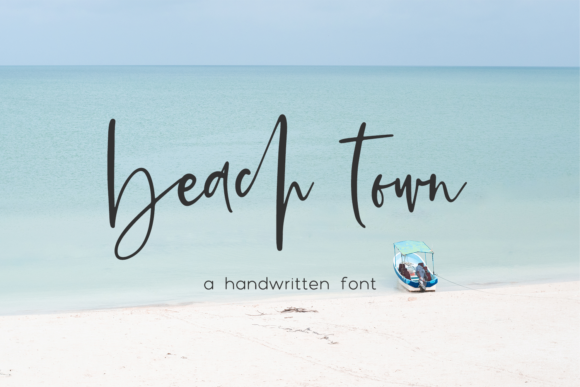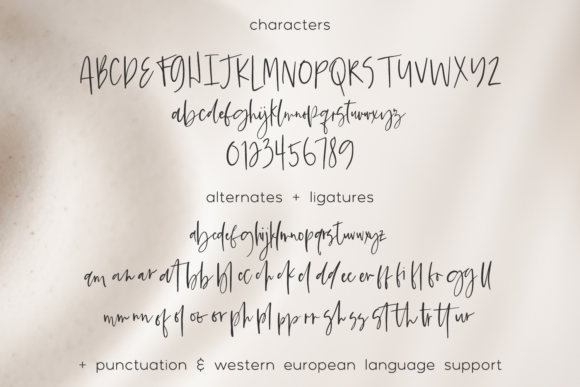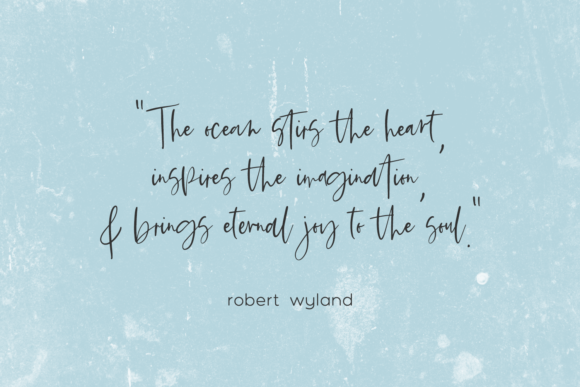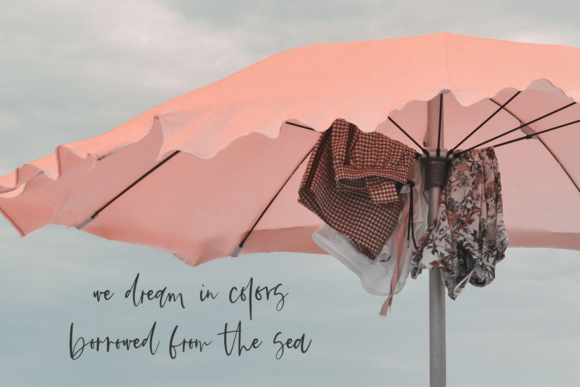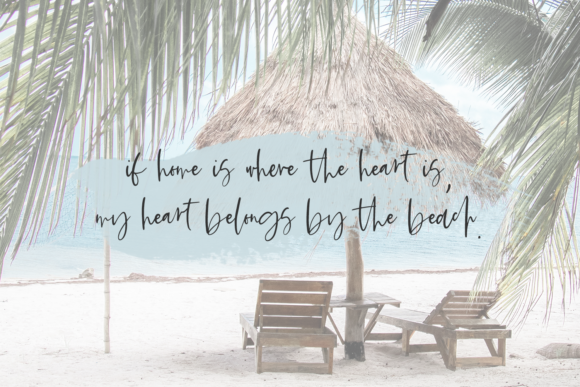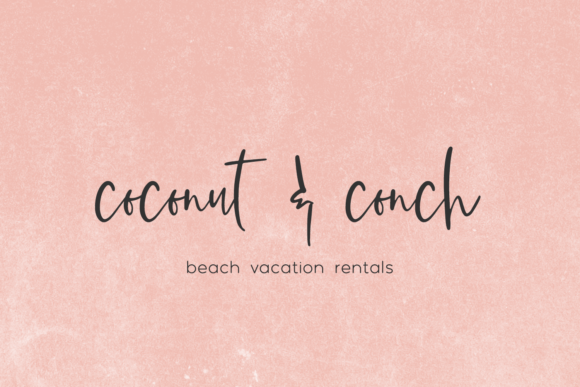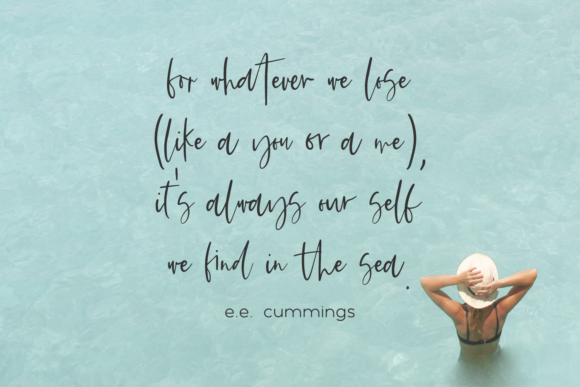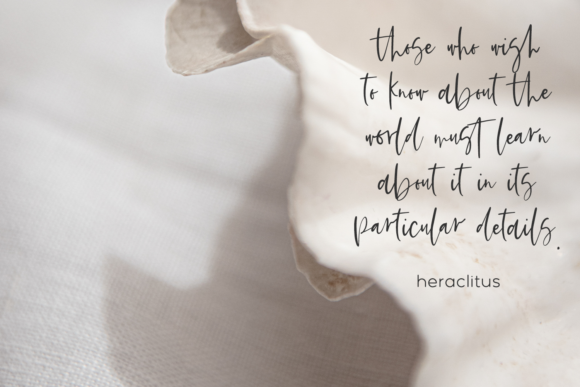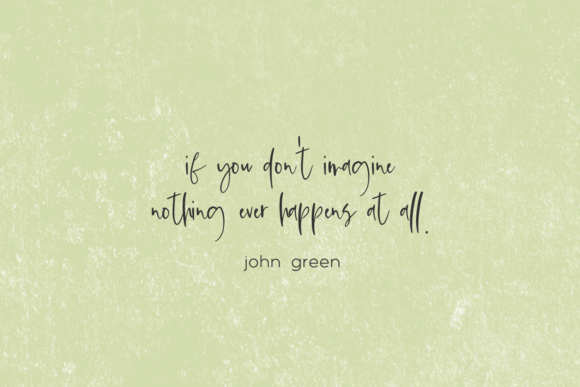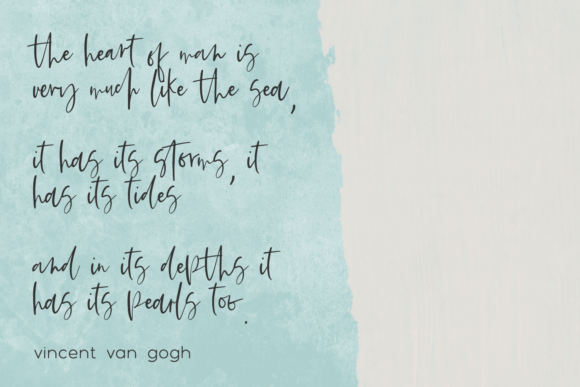
Beach Town Script Font
About Beach Town Script Font
Beach Town Script is a relaxed and asymmetrical handwritten font. It is PUA encoded which means you can access all of the glyphs and swashes with ease! It maintains its classy calligraphic influences while feeling contemporary and fresh.